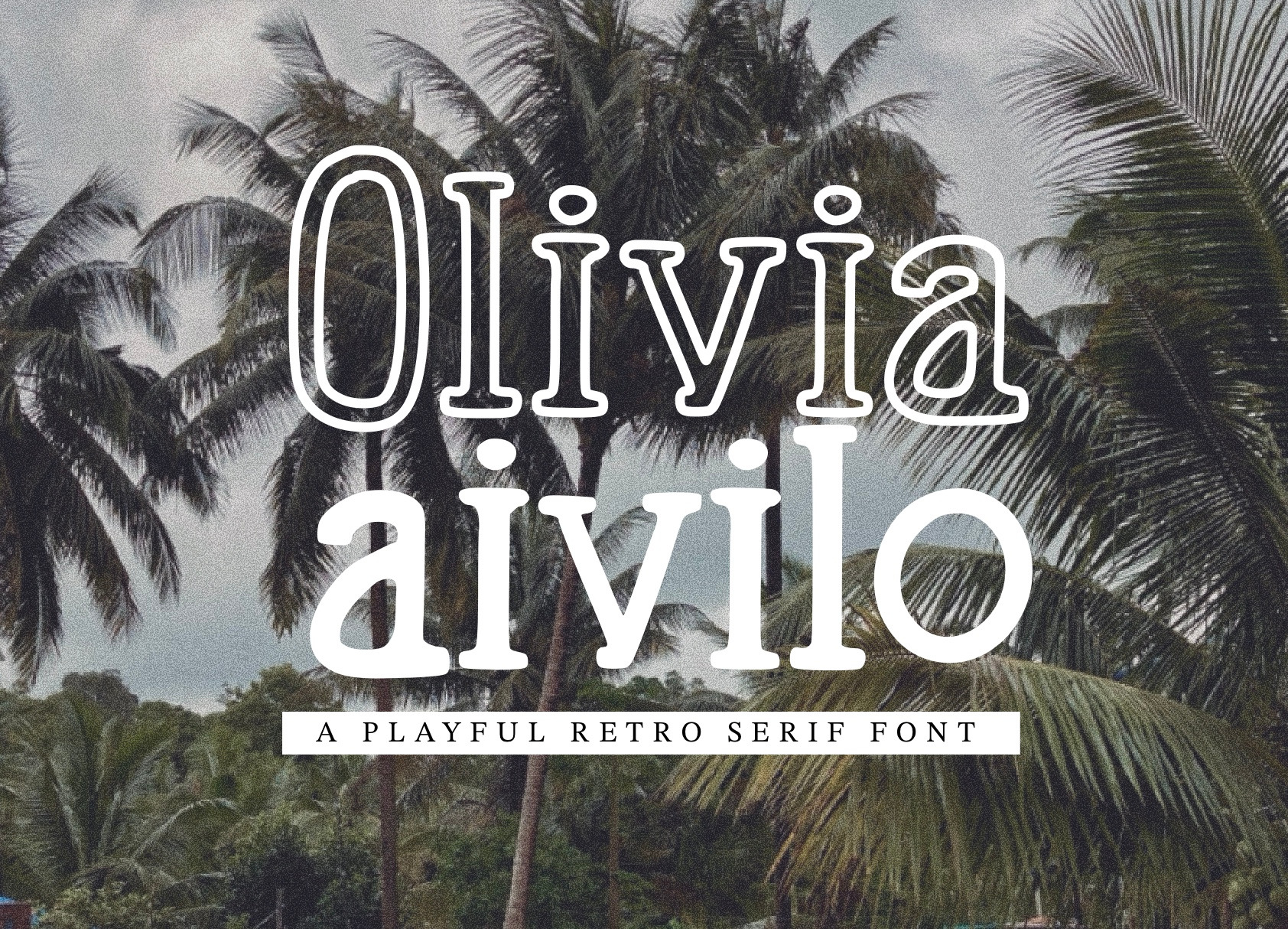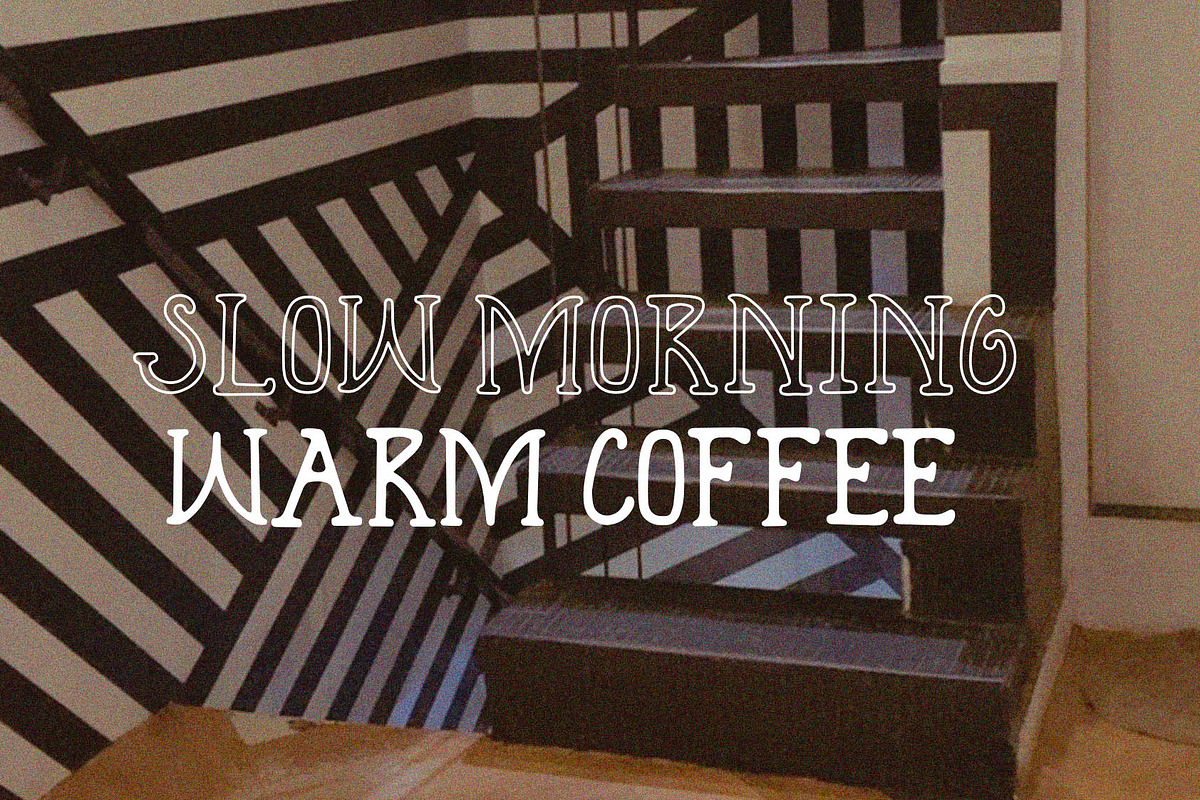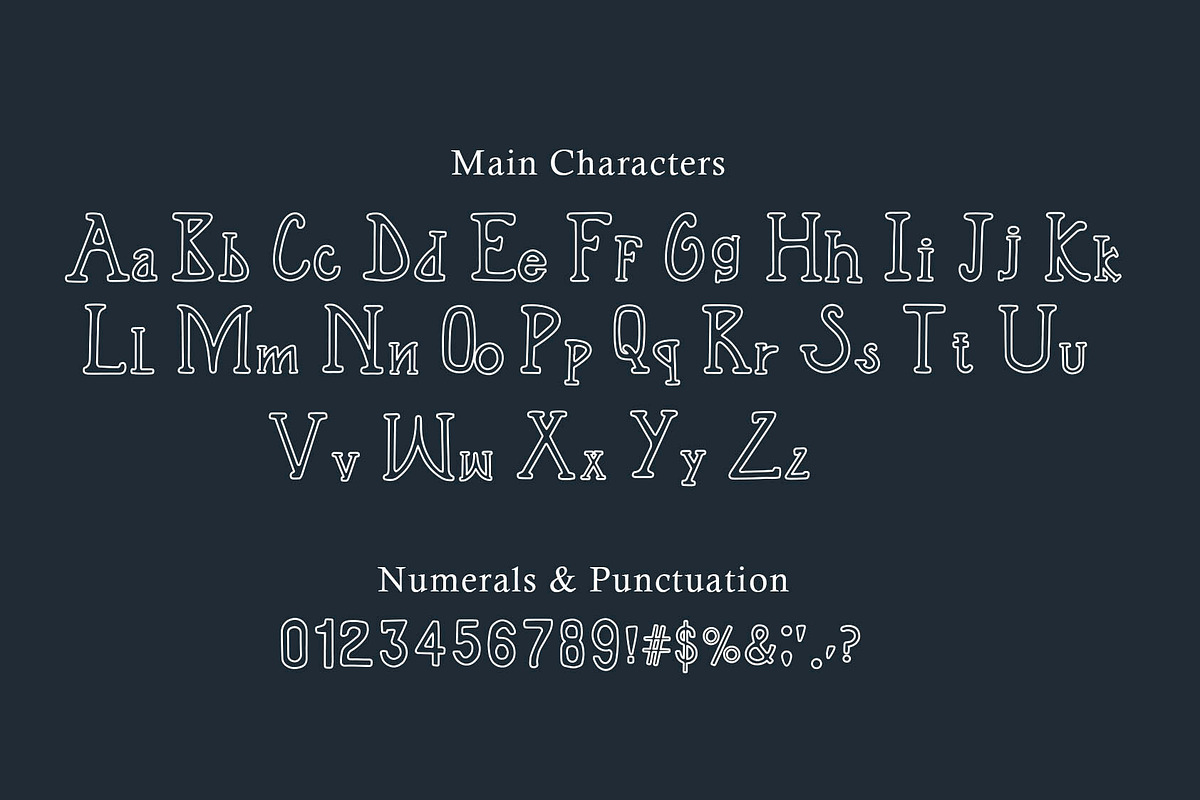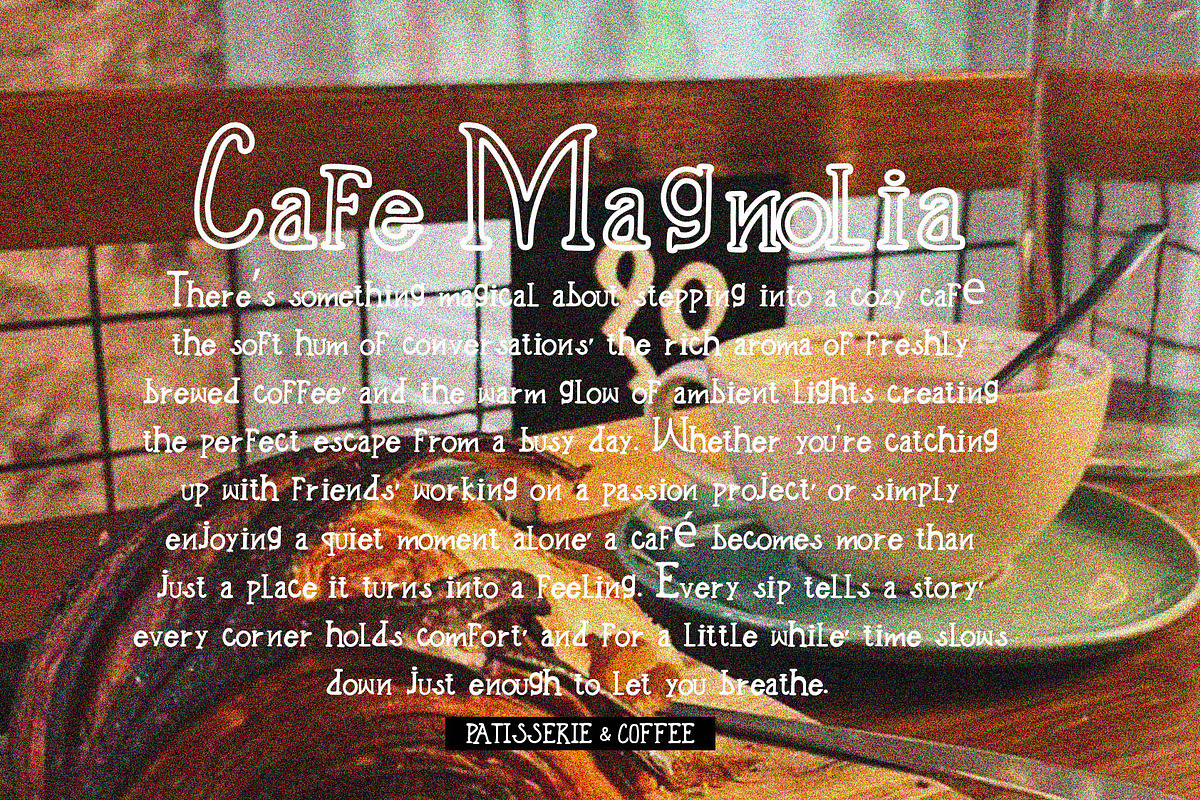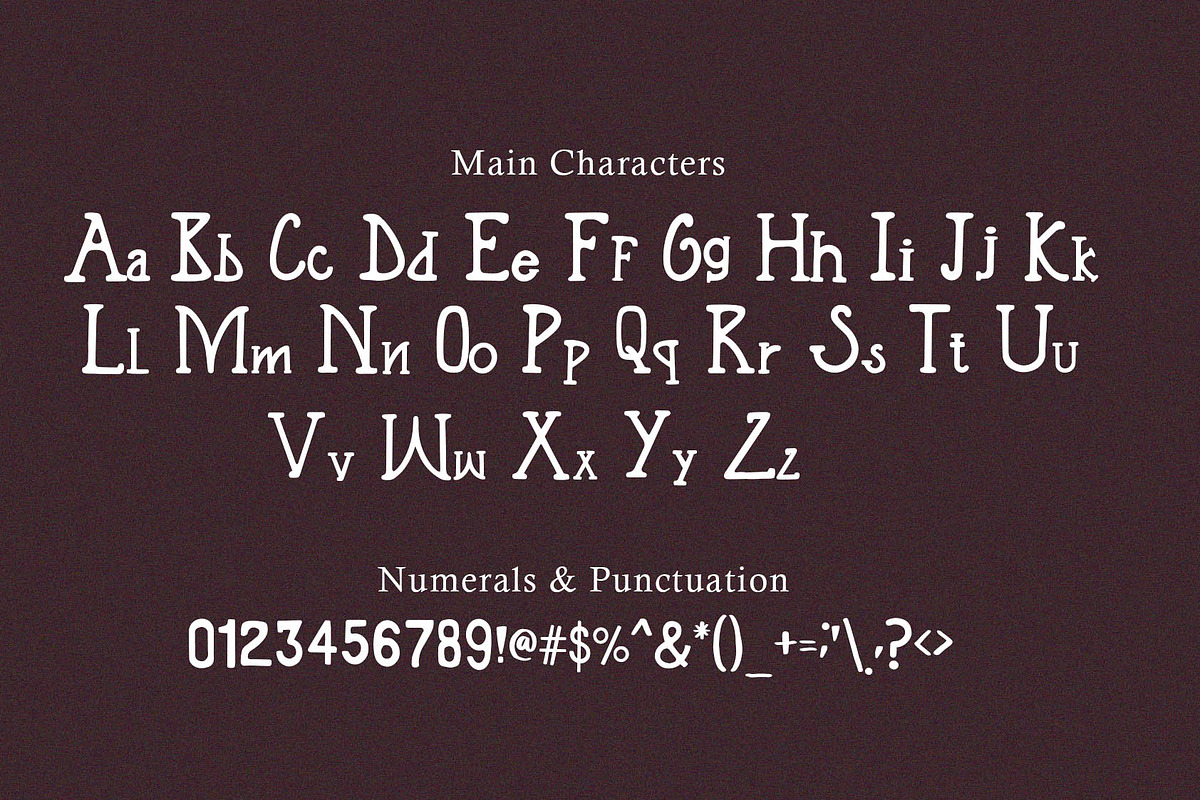
Olivia - A playful retro serif font
Olivia is a serif font perfcet for any elegant design work! Put this font on anything your heart desires tees, mugs, cards, cases… the fun never stops! Get creative!